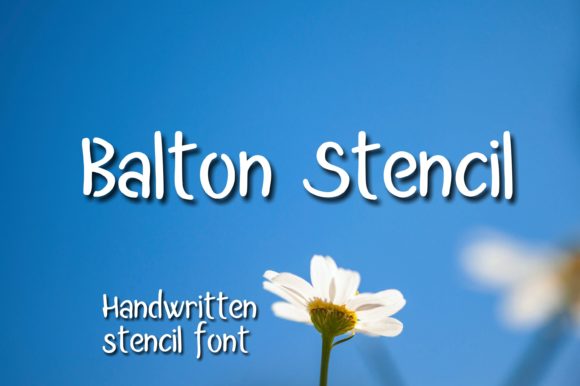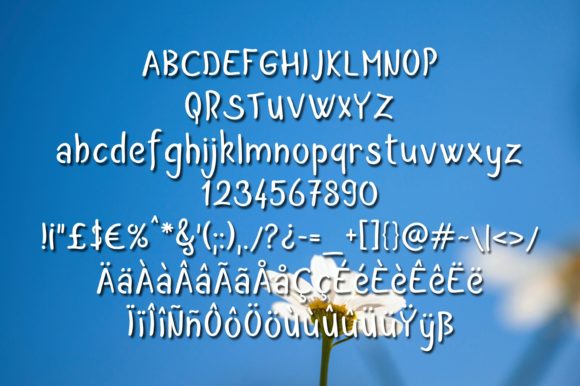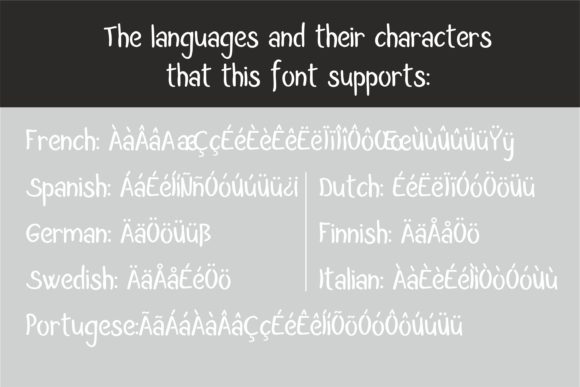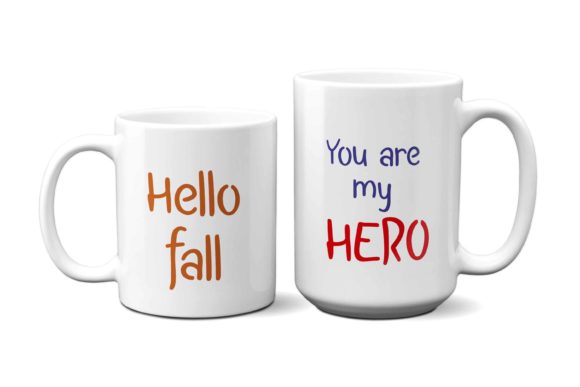
Balton Stencil Font: A Cute Handwritten Typography for DIY & Cricut
About the Balton Stencil Font
Step up your design game with Balton Stencil Font, a font that exudes confidence and style. Balton Stencil is a neat and simple handwritten font. Whether you’re looking for fonts for Instagram or calligraphy scripts for DIY projects, this font will turn any creative idea into a true piece of art!
Balton Stencil’s informal, handwritten style is ideal for headlines, short text blocks on posters, or branding elements requiring a friendly, approachable feel. It works well for social media graphics and packaging design where a casual, handcrafted aesthetic is desired. However, its limited character set and less-than-optimal readability make it unsuitable for body text or UI applications.
Consider pairing Balton Stencil with a clean sans-serif like Open Sans for body copy, balancing its hand-drawn charm with a legible, modern counterpart. Alternatively, a classic serif such as Garamond could create a sophisticated contrast, making the stencil lettering stand out with refined elegance.
The font projects a lighthearted, friendly personality, best suited for brands targeting a younger demographic or those with a casual, creative image. Avoid using it for projects requiring a high degree of formality or professionalism.
Balton Stencil Font Usage Examples
Balton Stencil Font Example